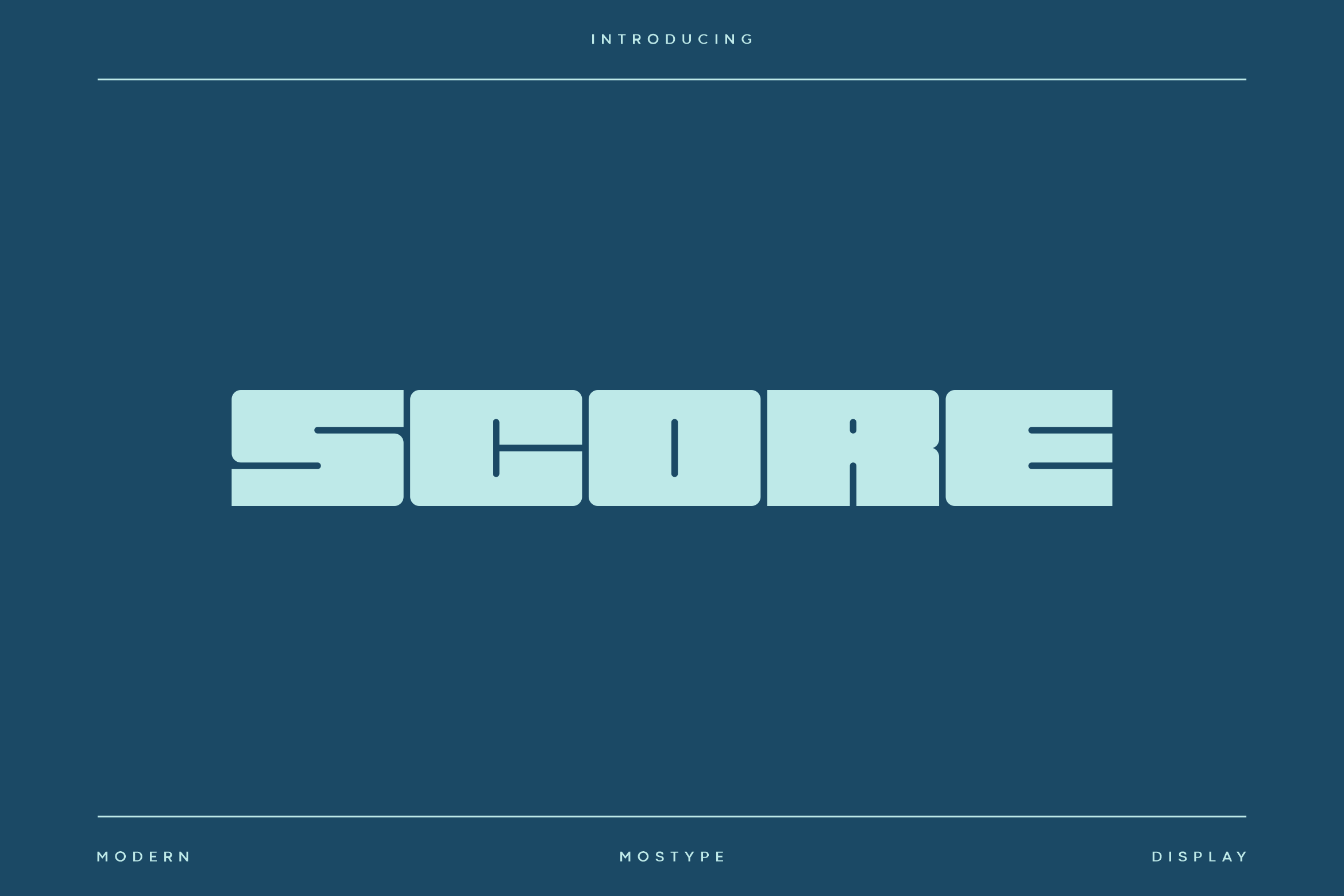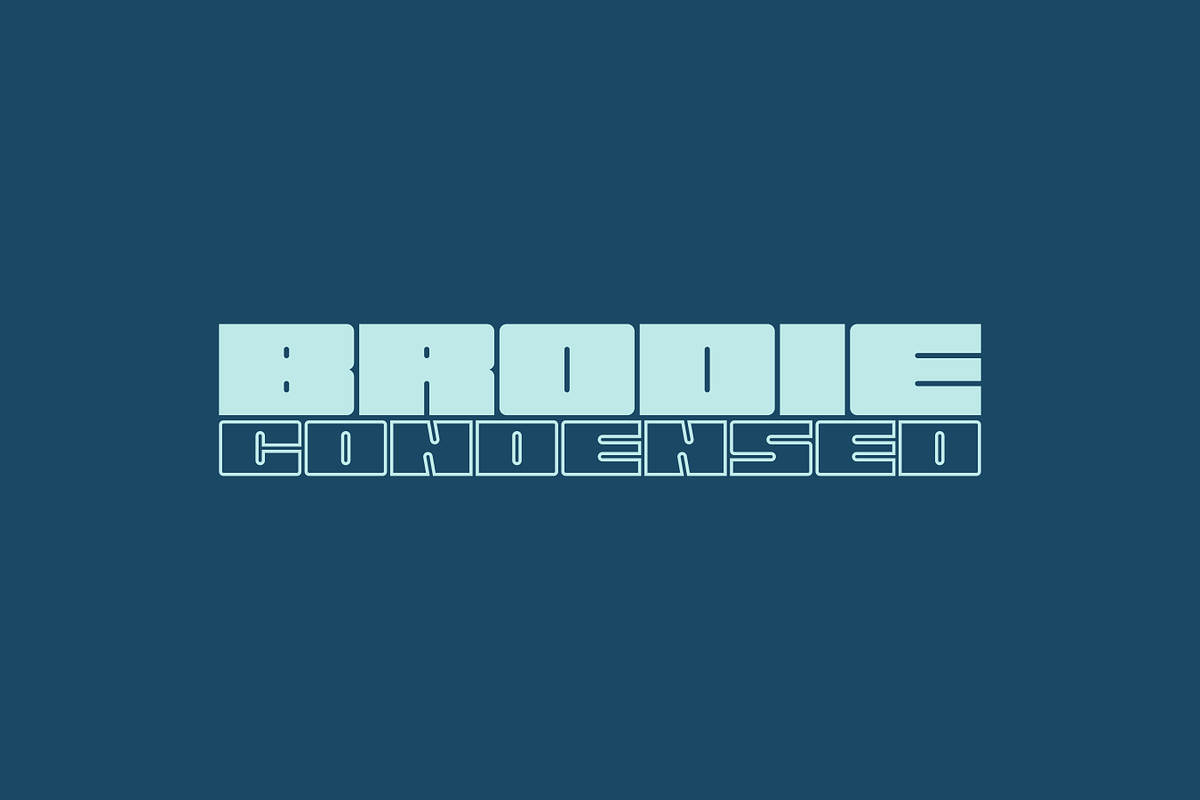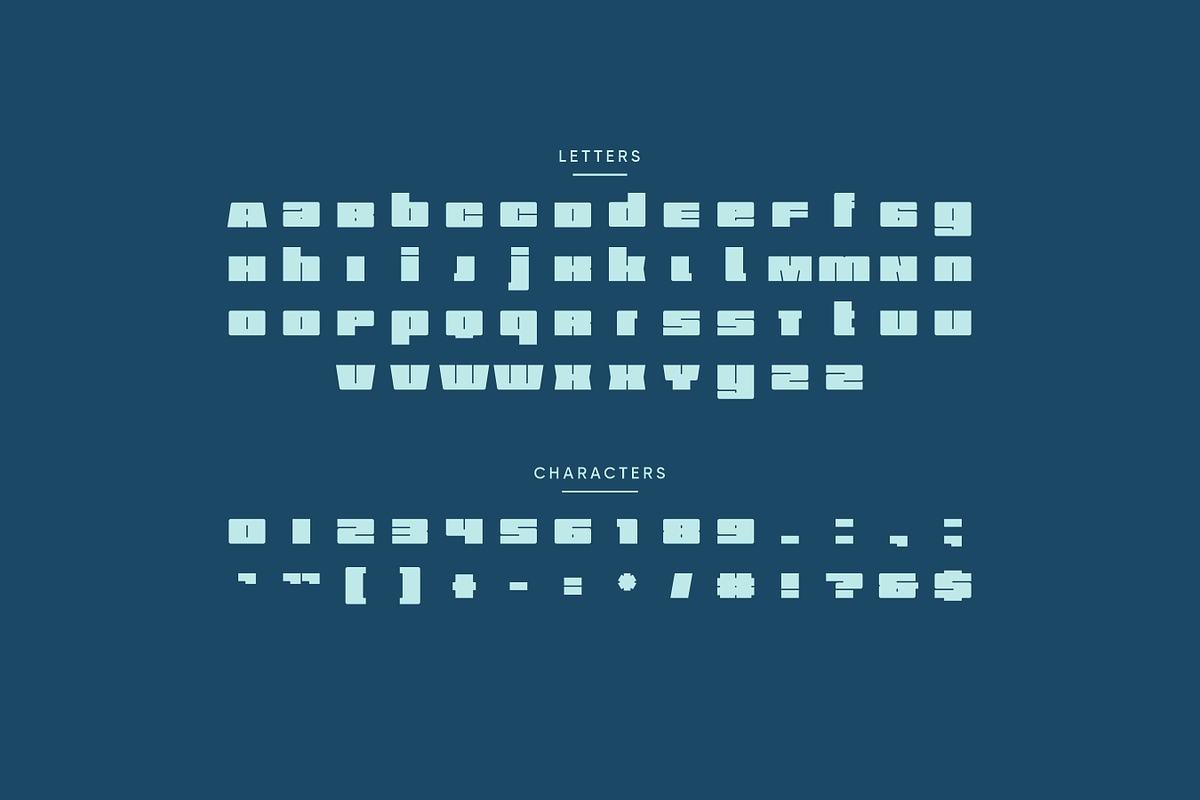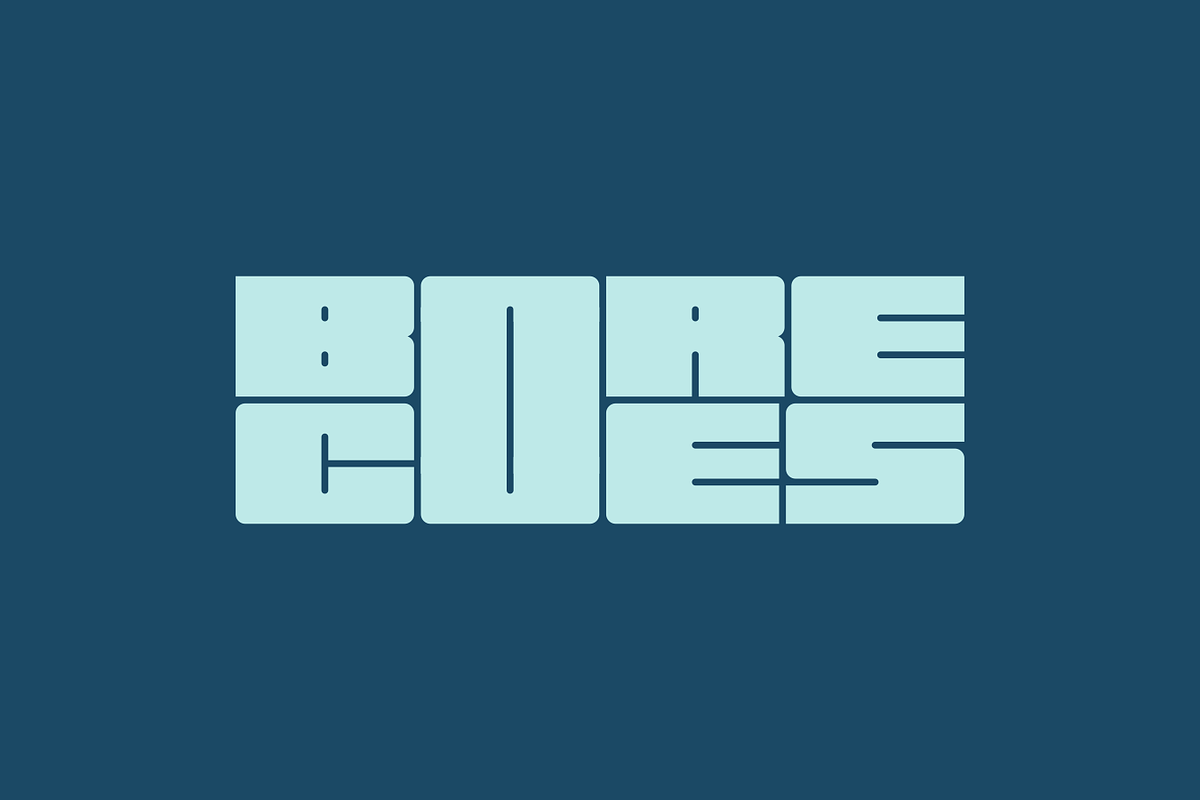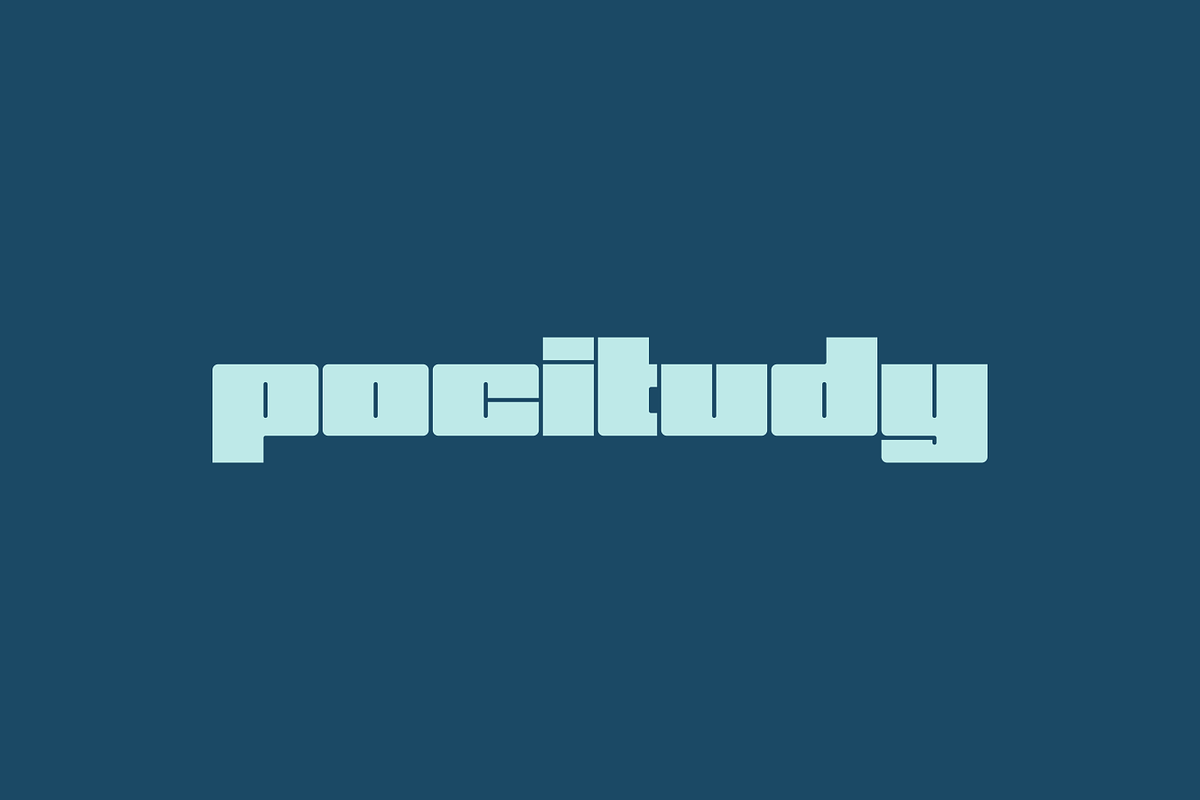
Score - Modern Display Typeface
Introducing Score, a bold and modern condensed typeface. With its strong, impactful lines and unique cut details, Score is perfect for creating eye-catching headlines, logos, and posters. Its bold, blocky letters convey strength and confidence, making it ideal for projects that need to stand out and leave a lasting impression. Whether you're designing for advertising, fashion, or creative branding, Score condensed style provides a versatile solution for enhancing visual impact.